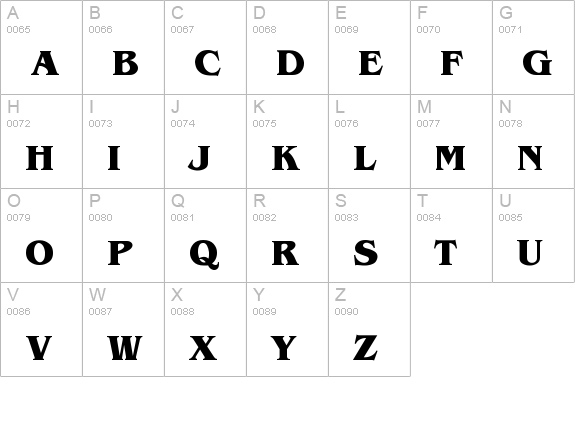
Ben Smith Font Details
Ben Smith font is a modern and stylish typeface that exudes elegance and sophistication. With its clean lines and unique design, this font is perfect for a wide range of projects, from branding to editorial design. The versatility of Ben Smith font makes it a great choice for both digital and print applications. What sets Ben Smith font apart is that it is not only visually appealing, but also free to download. You can get your hands on this stunning font at FontsMarket.com, where you can freely access and use it in your projects without any restrictions. Whether you're a designer looking for a new font to add to your collection or a business owner seeking to elevate your brand, Ben Smith font is sure to impress with its sleek and modern aesthetic. Download it today and take your designs to the next level!